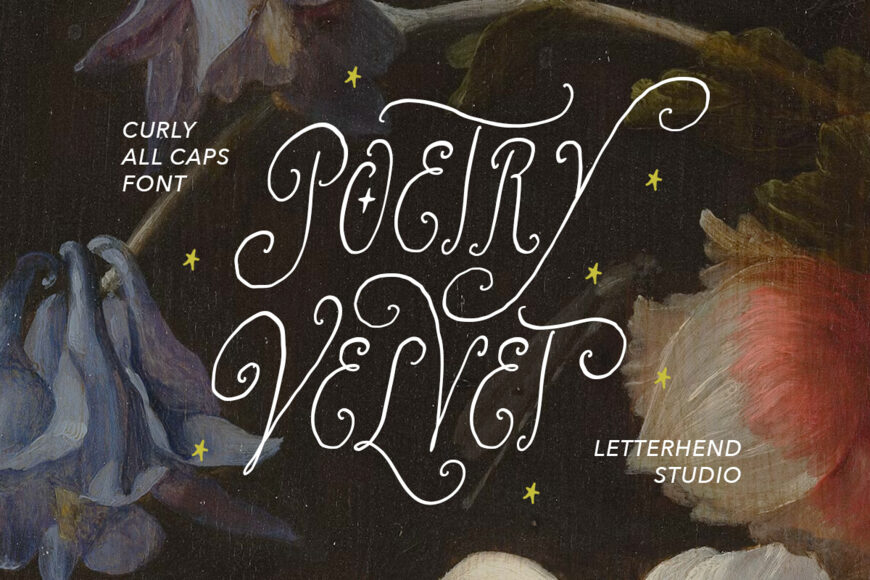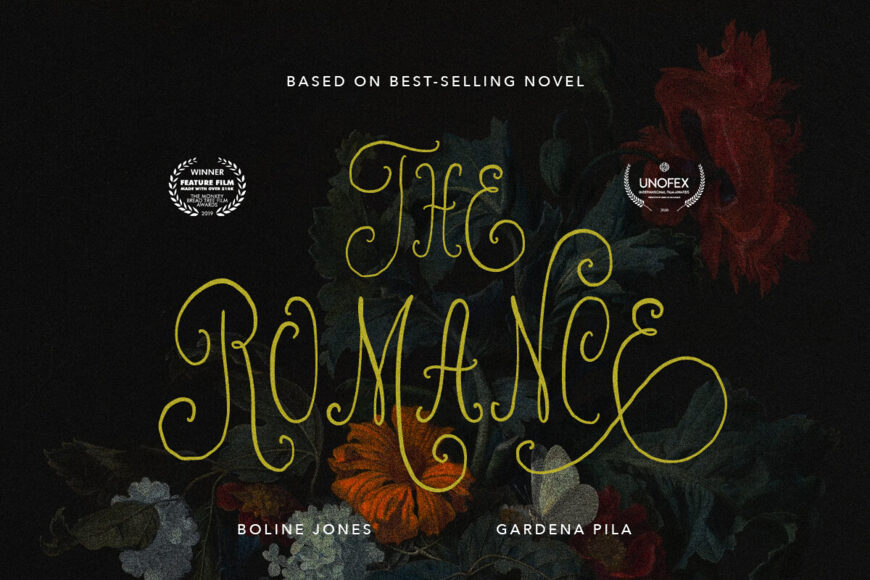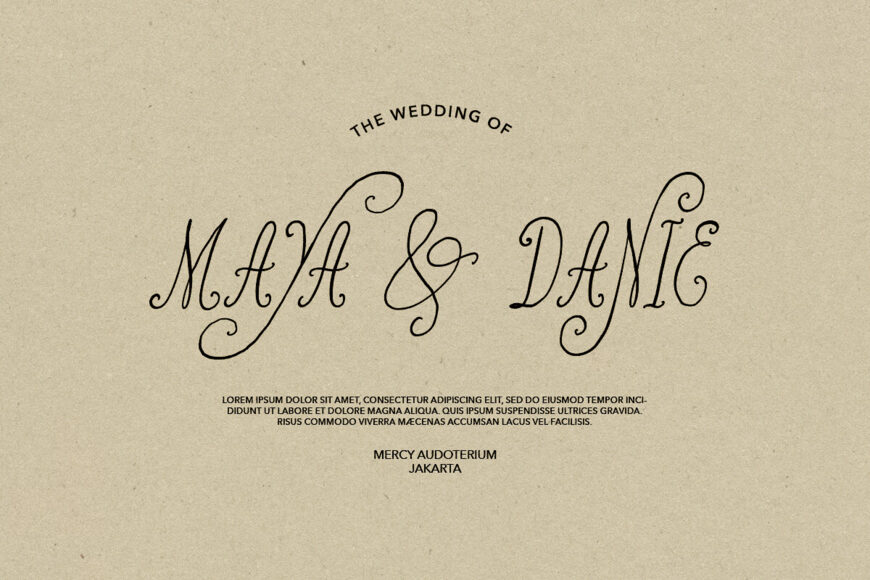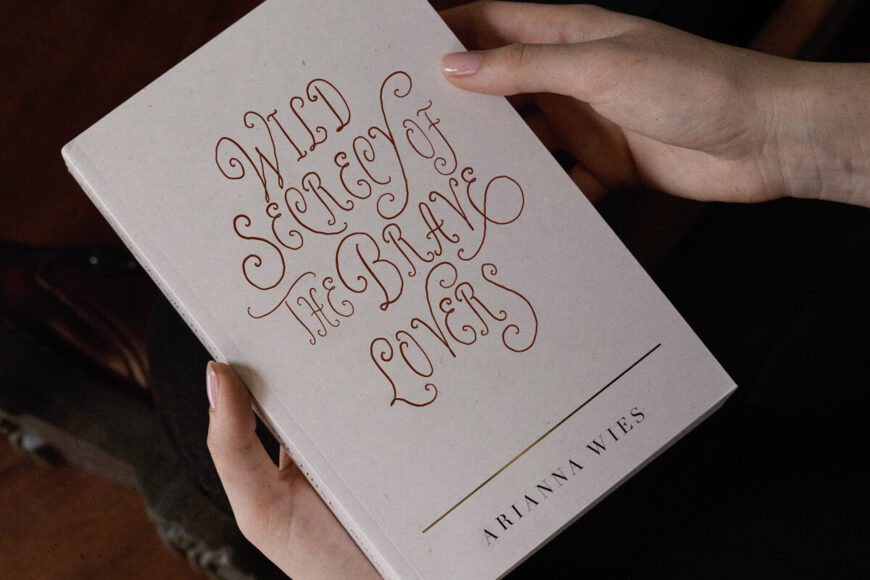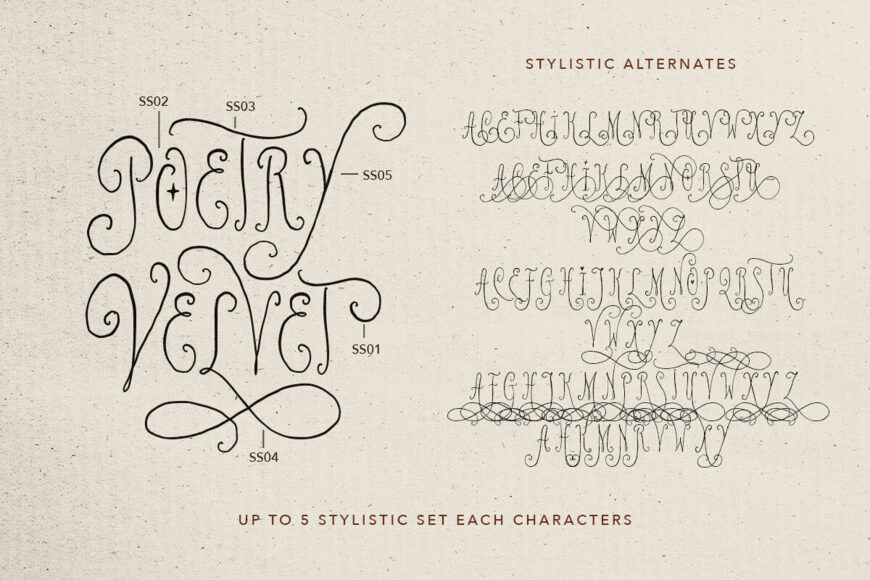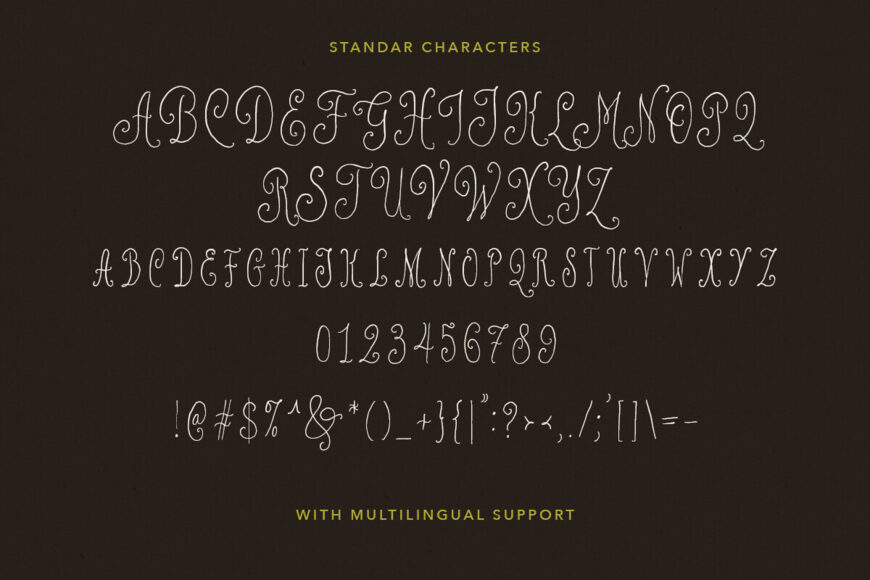
Every letter in Poetry Velvet flows with graceful curves and enchanting flourishes, creating an atmosphere that feels both timeless and dreamlike. Its slender all-caps forms are adorned with expressive swashes and playful curls, giving each word the charm of handcrafted lettering while maintaining a refined, decorative presence.
Whether you’re crafting romantic wedding stationery, boutique logo marks, whimsical book titles, fairy-tale quote prints, vintage product packaging, or custom vinyl craft SVG projects, Poetry Velvet adds an irresistibly graceful, storybook charm to your creative canvas.